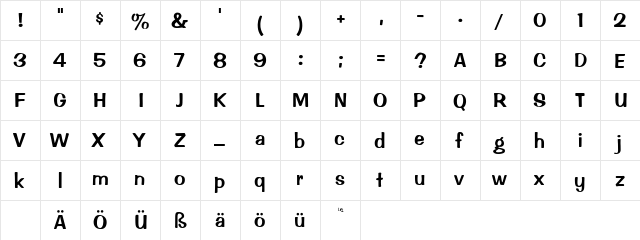
ChartIt Normal
Design Context for ChartIt Typeface
ChartIt is a composed and adaptable typeface that performs quietly and consistently across a wide range of design contexts.